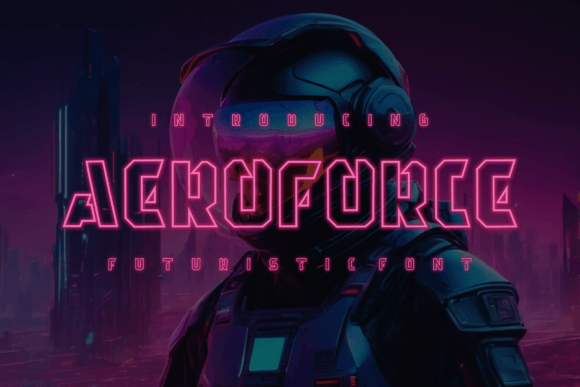
The Future of Typography: Unlocking the Power of Aeroforce Font
Have you ever stared at a blank page, waiting for the perfect font to bring your creative vision to life? For designers, this moment is all too familiar. It’s the spark that ignites a new project, the thrill of experimenting with different styles and textures, and the satisfaction of watching your ideas take shape.
Enter Aeroforce Font, a cutting-edge typographic solution designed to elevate your designs to new heights. This futuristic font is more than just a visual statement – it’s a powerful tool that can transform the way you communicate your message. With its sleek, sharp design and comprehensive character set, Aeroforce Font is perfect for titles, typography, posters, and more.
Aeroforce Font Key Features
- Unique Characteristics: Aeroforce Font features a bold, modern design with a unique blend of geometric and sans-serif elements, giving it a distinctive and eye-catching appearance.
- Kerning and Ligatures: Aeroforce Font includes advanced kerning and ligature pairs, ensuring that text sets are visually appealing and professional-looking, even at small font sizes.
Aeroforce Font Review
I recently had the chance to work with the Aeroforce Font, and I must say it’s been an interesting experience. There are some aspects that I genuinely enjoy, while others left me feeling a bit underwhelmed.
- Customizable weight: I appreciate how Aeroforce offers a range of weights, from light to bold, allowing for flexibility in design applications.
- Clean and modern aesthetic: The font’s sleek design makes it perfect for contemporary branding and digital products.
- Legibility: Aeroforce is highly legible, making it an excellent choice for body text and large-scale headings.
- Lack of character set: Aeroforce seems to be missing certain characters and symbols, which can be a problem for designers working on projects that require specific glyphs.
- Compatibility issues: I encountered some compatibility problems when using Aeroforce with certain software and operating systems.
- Not ideal for complex typography: While Aeroforce works well for basic text, it can struggle with more intricate typography and layouts.
While Aeroforce has its strengths, its limitations prevent it from being a go-to font for all design projects. However, for certain applications, it can be a great choice. Ultimately, I would recommend Aeroforce for simple, modern designs that don’t require extensive character sets or complex typography.
Tips for Getting the Most Out of Aeroforce Font
To get the most out of Aeroforce Font, use it in bold, uppercase text to create a striking visual effect. Pair it with other fonts to create a unique and eye-catching design.
Aeroforce Font is commonly used in modern and futuristic designs, such as:
– Gaming and technology branding
– Sci-fi and space-themed designs
– Minimalist and industrial-style graphics
Alternatives to Aeroforce Font
1. Arial Black
Arial Black is a sans-serif font designed to mimic the bold style of traditional typography. It is best used for headings, titles, and any text that requires a strong visual impact. Compared to Aeroforce Font, Arial Black has a more classic and traditional look, whereas Aeroforce Font has a modern and futuristic feel.